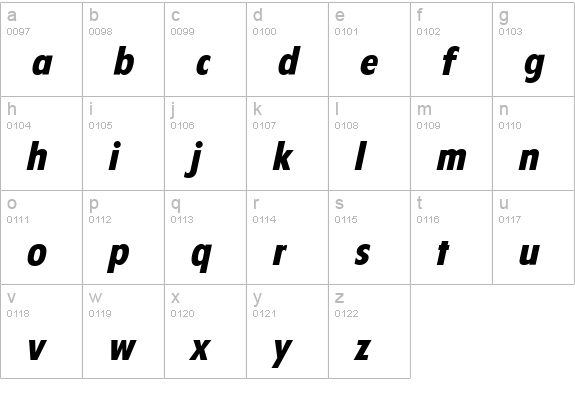
FloridaSerial-Xbold-Italic is a distinctive, italic variant in the FloridaSerial typeface family \xE2\x80\x94 well suited to design and typography projects.
FloridaSerial-Xbold-Italic is a sleek and modern font that exudes sophistication and elegance. Its bold and italic design adds a touch of flair to any project, making it perfect for headlines, logos, and branding materials. The sharp angles and clean lines give this font a contemporary edge, while still maintaining a sense of professionalism. What sets FloridaSerial-Xbold-Italic apart is not only its stunning design, but also the fact that it is available for free download at FontsMarket.com. This means that you can easily access this premium font without any cost, making it a valuable addition to your design toolkit. Whether you're working on a personal project or a client's campaign, FloridaSerial-Xbold-Italic is sure to make a statement and elevate your work to the next level. Download it today and unleash your creativity with this versatile and stylish font.